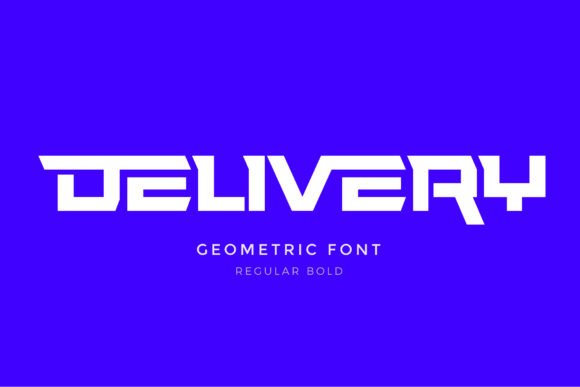
Unleash the Power of Typography: Delivery Font
Enter Delivery Font, a bold geometric display font that’s designed to make a statement. With its sleek lines and modern aesthetic, Delivery Font is perfect for branding designs, product packaging, invitations, and so much more. Whether you’re working on a logo, a t-shirt design, or a poster, Delivery Font is sure to deliver – hence the name!
Key Features of Delivery Font
- Font Family: Delivery Font is a sans-serif font family designed for digital use, with multiple weights and styles available.
- Character Set: Supports a wide range of languages, including Latin, Cyrillic, Greek, and more, with over 1000 glyphs in each font weight.
- Size: Available in 8 font weights, ranging from Light to Black, with corresponding italic and bold styles.
- Unique Characteristics: Features a unique, modern design with a focus on legibility and clarity, making it ideal for digital applications such as UI, UX, and web design.
Delivery Font Review
As a designer, I was excited to dive into the world of Delivery Font, a new font designed specifically for digital communication. Here’s my honest take on this font.
- Easy to read: Delivery Font is highly legible, even at smaller sizes, making it perfect for digital displays.
- Clean design: The font has a clean and minimalistic design that makes it easy to scan and comprehend.
- Neutral tone: The font’s neutral tone makes it suitable for a wide range of applications, from formal to informal.
- Not suitable for print: While Delivery Font is excellent for digital displays, it may not be the best choice for print materials due to its digital-centric design.
- Lack of expressiveness: The font’s clean design can make it feel a bit flat and lacking in emotional expression.
Overall, Delivery Font is a solid choice for digital communication, but it may not be the best fit for every project. Its clean design and high legibility make it perfect for digital displays, but it may not bring the same level of expressiveness as other fonts.
To get the most out of Delivery Font, use it to create eye-catching headings and titles. You can also use it to add a professional touch to your documents and presentations. Experiment with different font sizes and colors to create a unique look.
Delivery Font is commonly used for:
– Creating eye-catching headings and titles
– Adding a professional touch to documents and presentations
– Creating a unique and memorable brand identity